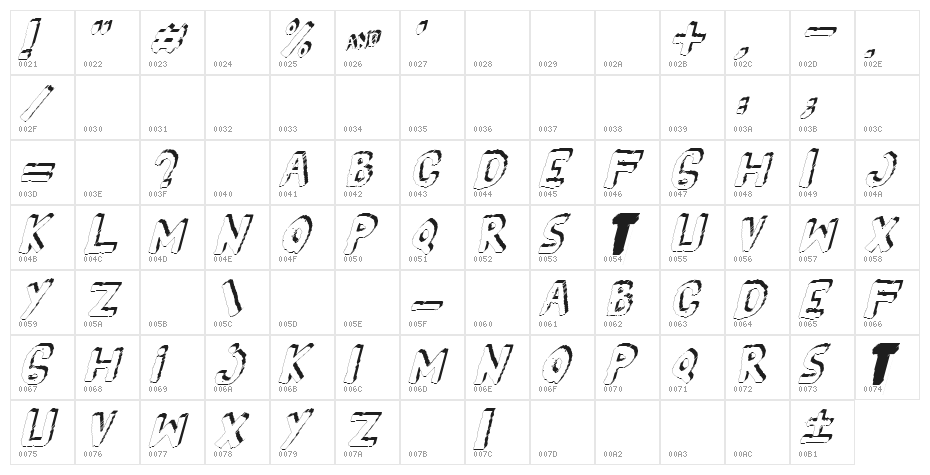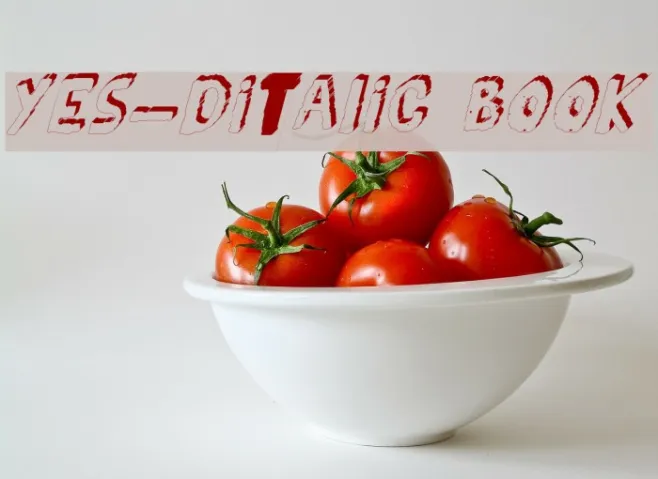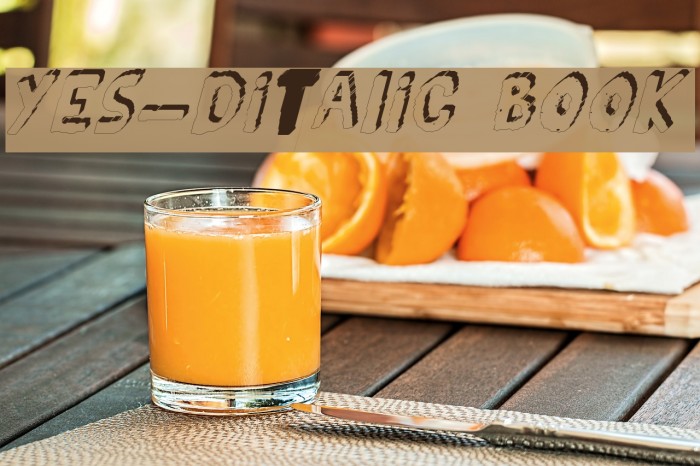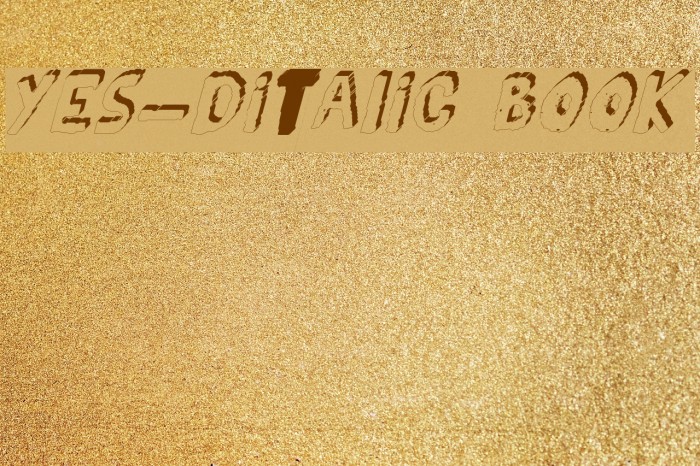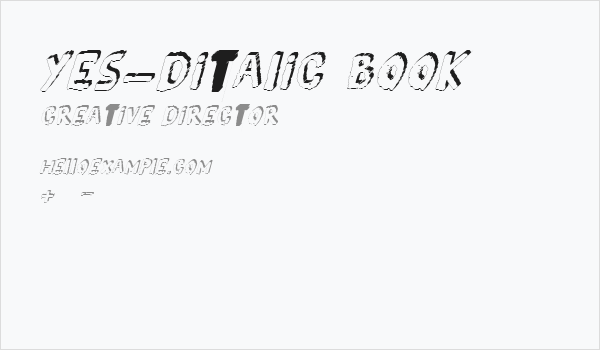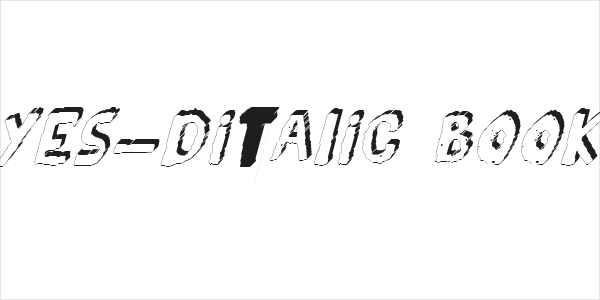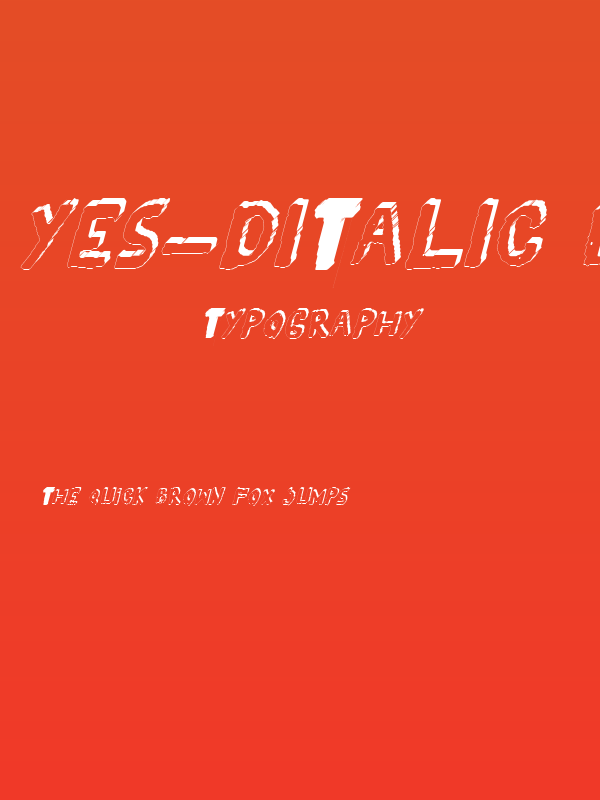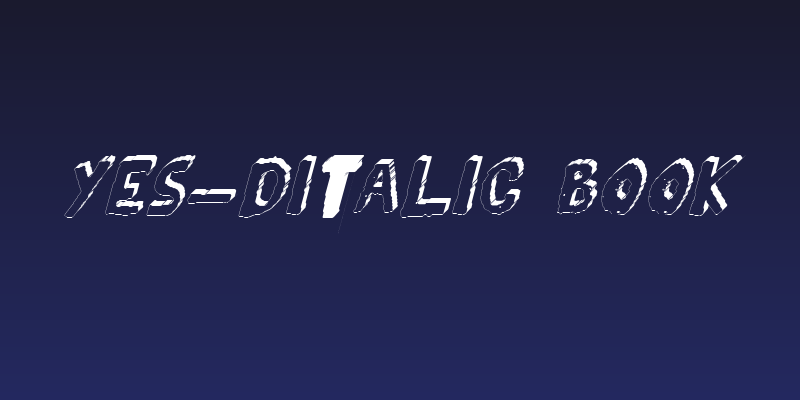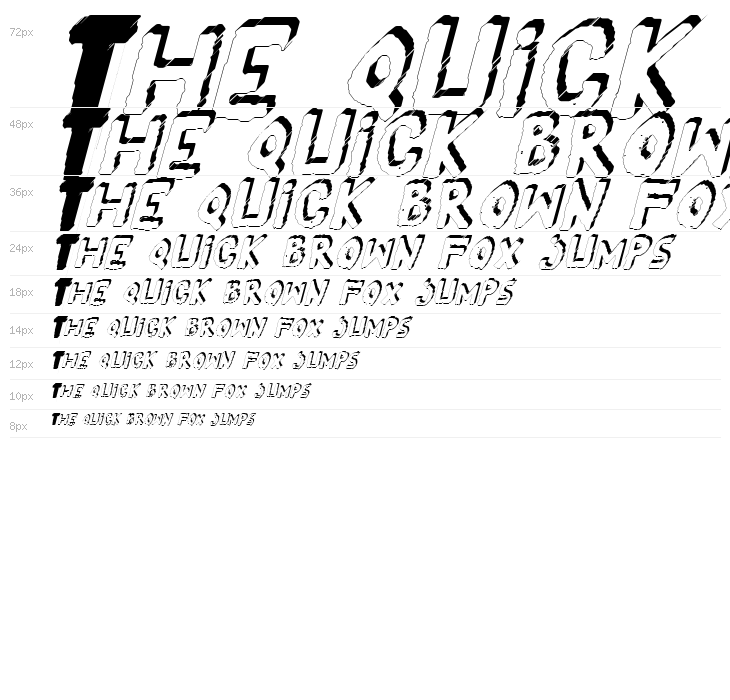
YES_3Ditalic Book Font
YES_3Ditalic Book Description
This font features a bold, three-dimensional style with an italic slant, giving it a dynamic and modern appearance. The letters are capitalized and exhibit a shadow effect that enhances the 3D illusion. The strokes are thick and consistent, providing a strong visual impact. The design is playful yet assertive, making it suitable for attention-grabbing headlines or titles. The character set includes uppercase letters, numbers, and a variety of special characters, all maintaining the same stylistic elements. The overall look is both contemporary and versatile, ideal for projects that require a bold statement.